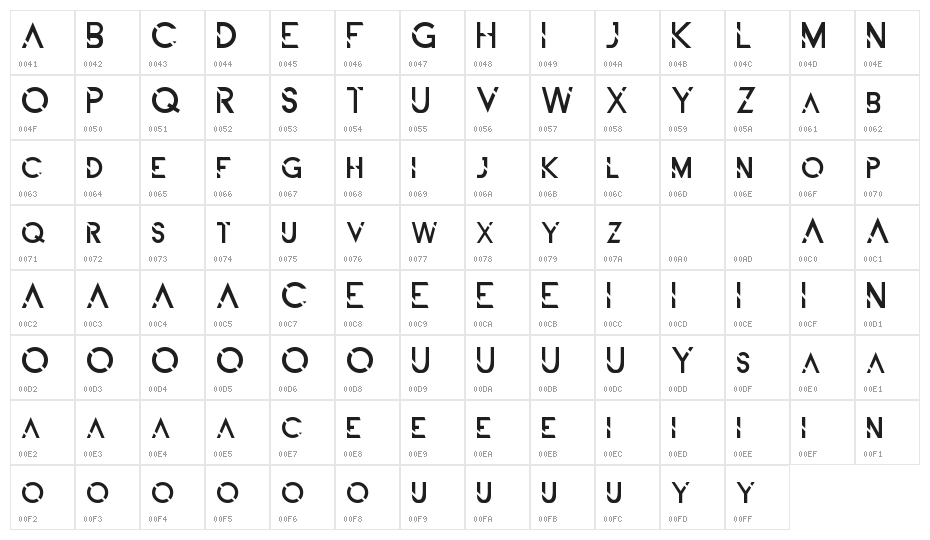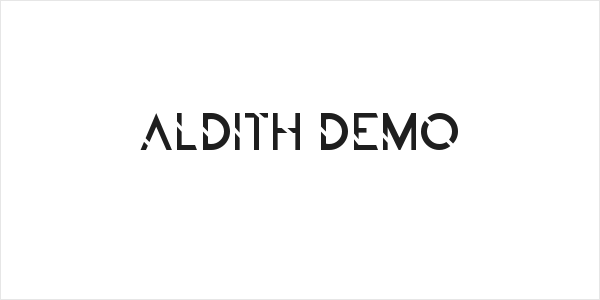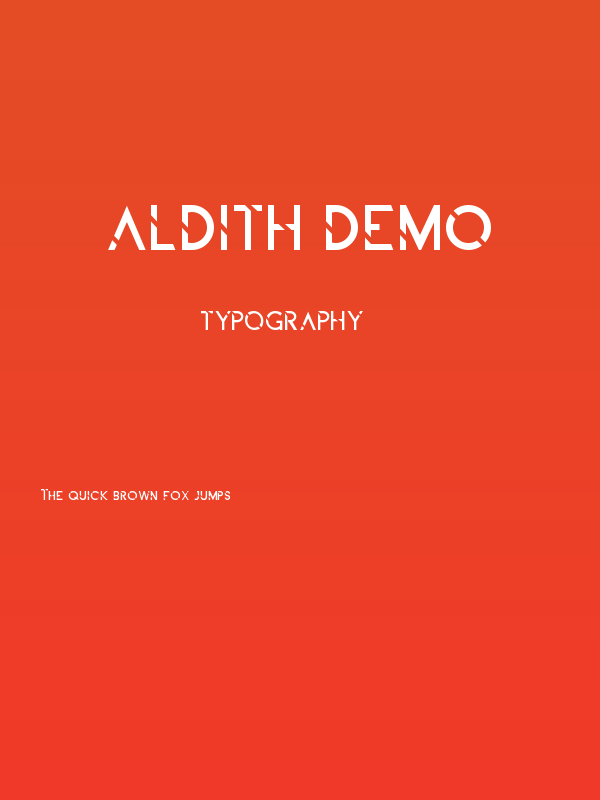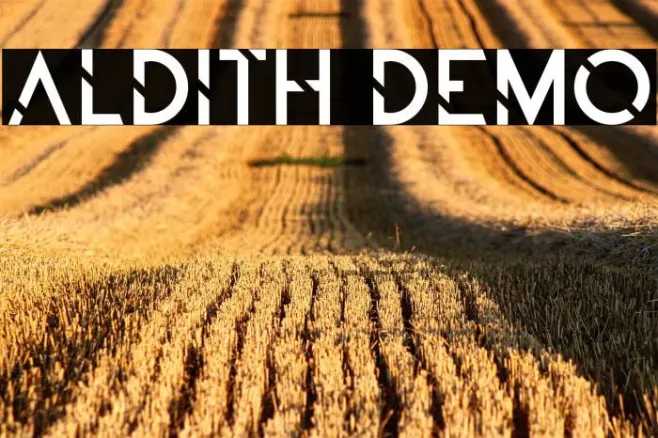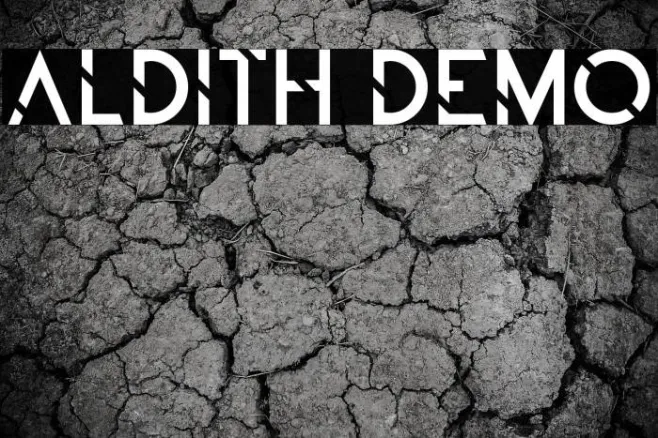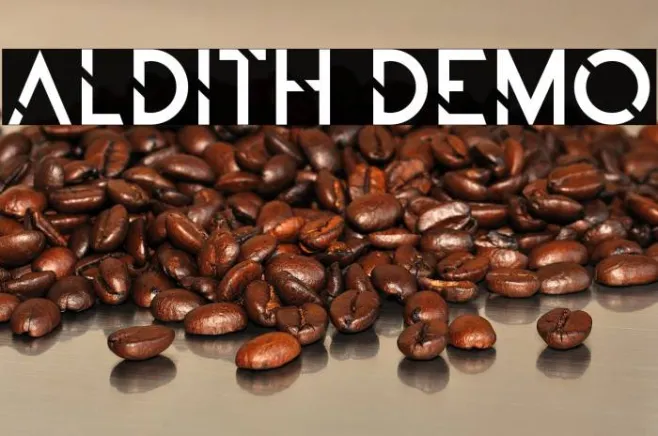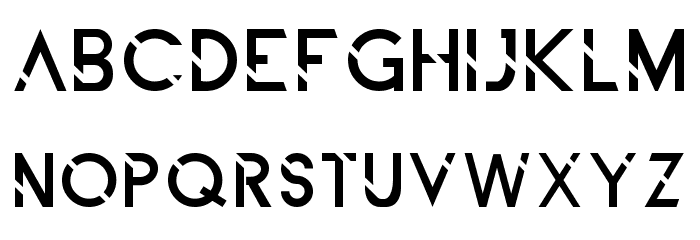
ALDITH DEMO Font
ALDITH DEMO Description
This font features a bold and striking design with geometric elements and sharp angles. The characters are constructed with a modern, stencil-like appearance, incorporating cut-out sections that create a dynamic and edgy look. The uppercase letters are uniform in height, contributing to a cohesive and structured aesthetic. The font's unique style makes it stand out, ideal for projects requiring a contemporary and innovative touch. Its boldness and distinctiveness make it suitable for attention-grabbing headlines and branding materials.